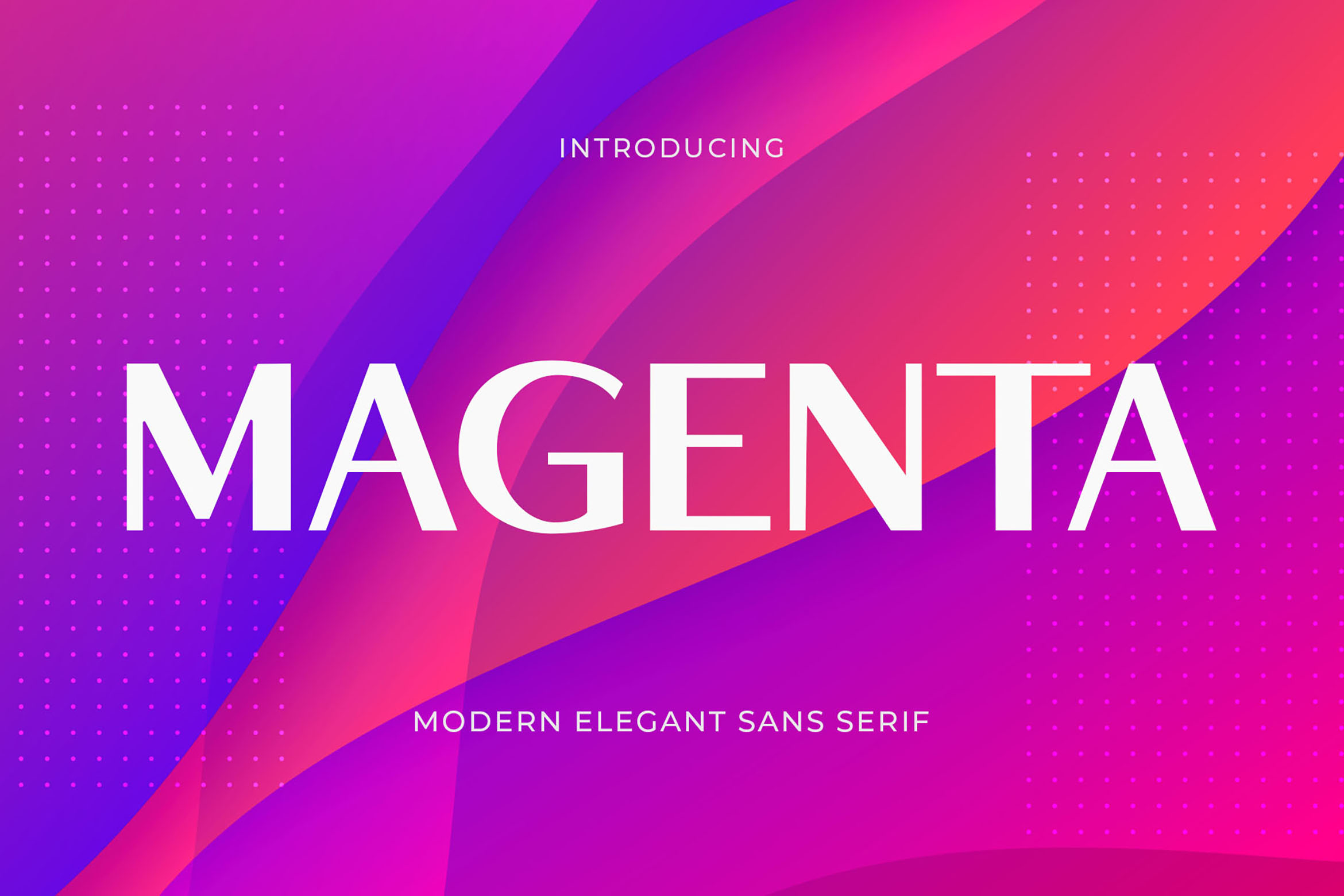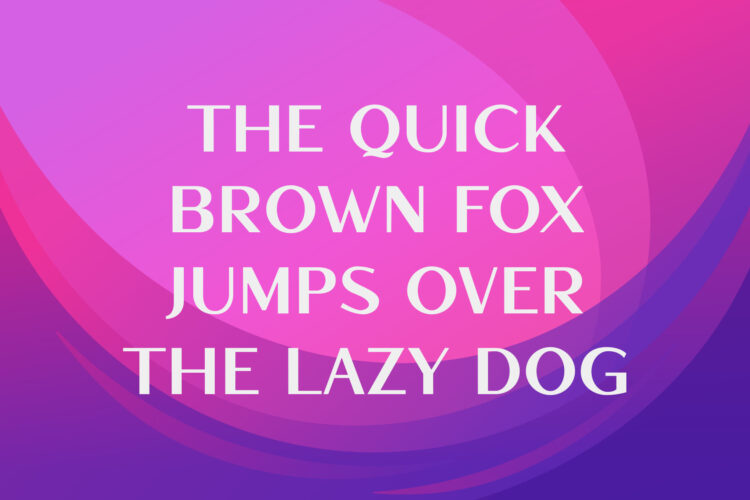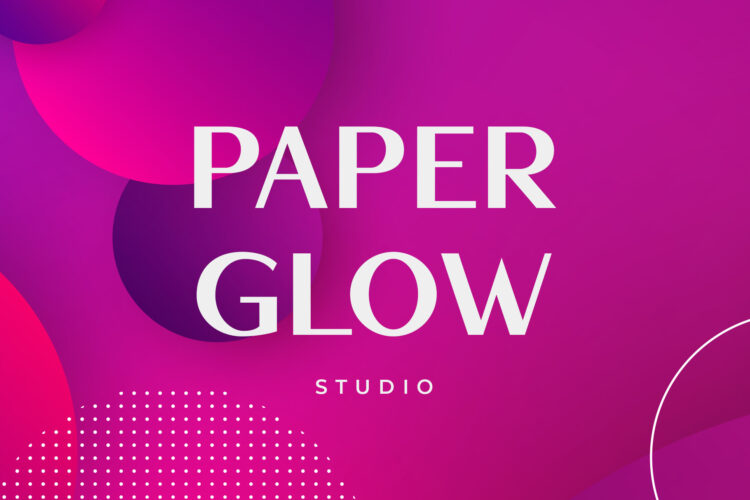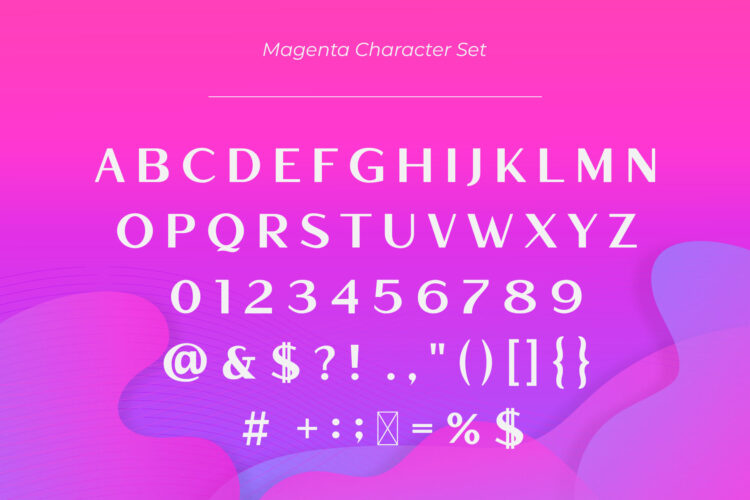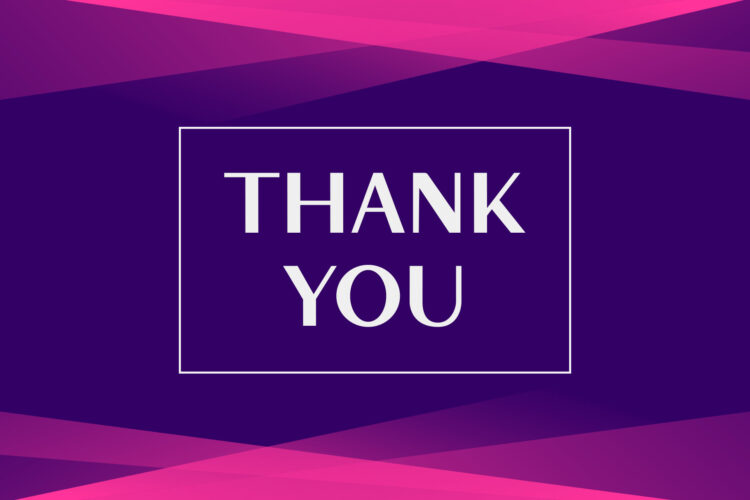
Introducing our new Magenta, modern sans serif font with elegant style this is perfect for branding, logos, invitation, magazines, product packaging and more.
Magenta – Modern Elegant Sans Serif